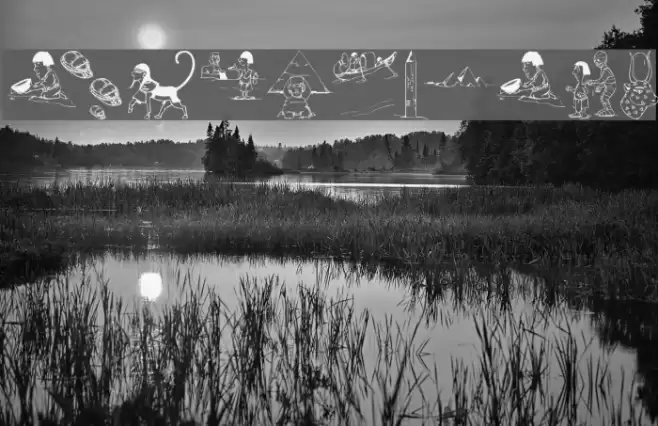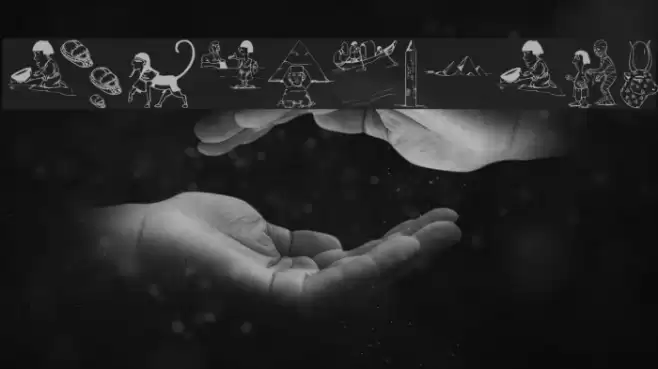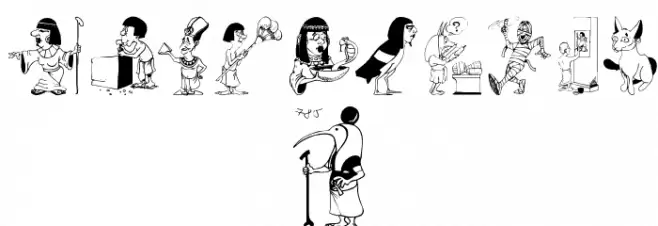
OldEgyptOne Font
OldEgyptOne Description
This is a decorative font inspired by ancient Egyptian themes, featuring playful and cartoonish illustrations of Egyptian figures, symbols, and artifacts. Each character is represented by a unique drawing, capturing the essence of Egyptian culture with a humorous twist. The font includes depictions of pharaohs, pyramids, hieroglyphs, and other iconic elements, making it visually engaging and culturally rich. The style is whimsical and artistic, with each character offering a distinct and imaginative representation. This font is not suitable for traditional text but serves as a creative tool for thematic projects.
A decorative font with cartoonish Egyptian-themed illustrations from Uncategorized fonts.
- Proposed Projects: Ideal for educational materials, themed event posters, creative projects, and decorative purposes where an Egyptian theme is desired.
- Use Case: Logos, Posters, Educational Materials